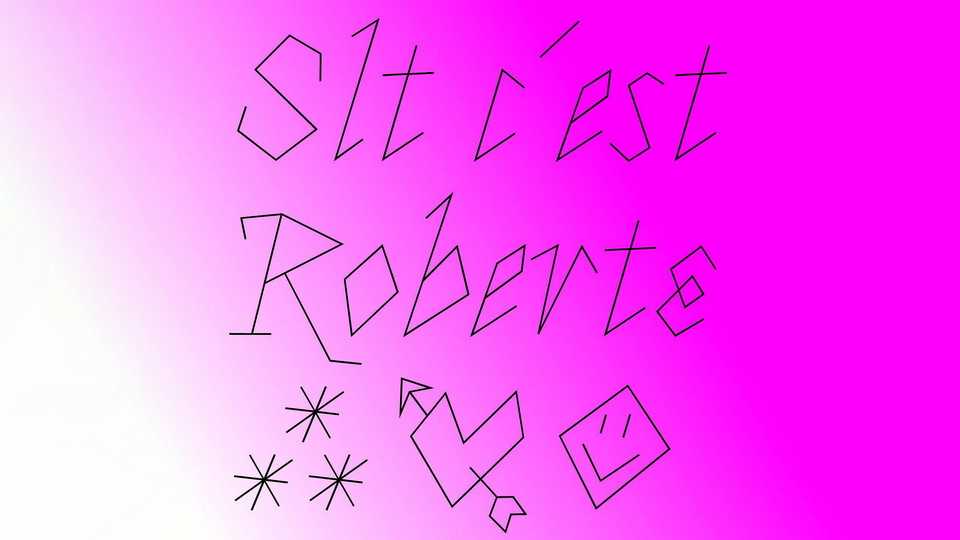
Download Roberte font, a stroke typeface without curves drawn freely from the italics of Robert Granjon. Roberte is free, Roberte is independent. Roberte is open source. Roberte has post-binary characters. Roberte has a fast track because Roberte has no time to fool around